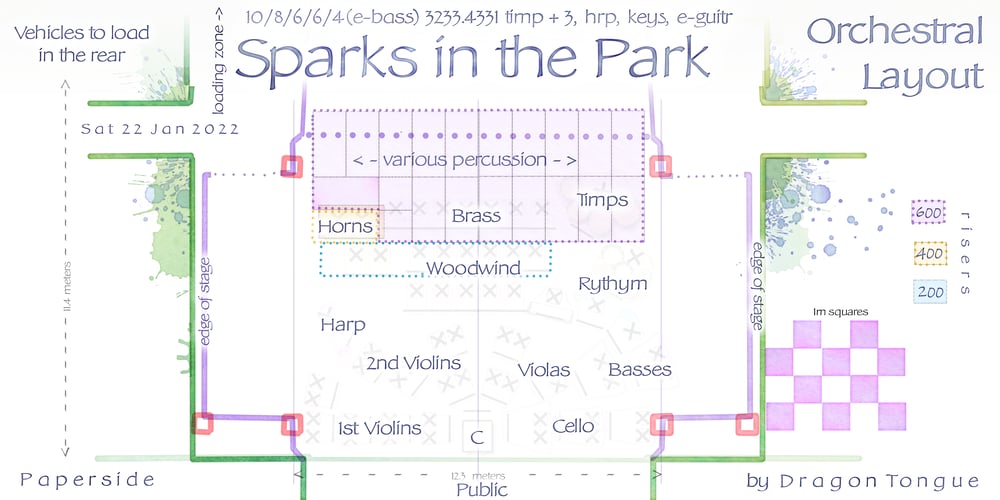
DT Paperside Font Family was designed by Scott Spensley and published by Dragon Tongue Foundry. DT Paperside contains 6 styles and family package options. Paperside:Neither Papyrus nor SSI Countryside.Inspired in some ways by the Papyrus form, but untextured and smoother, with the dimensions and proportions more open, like that of Countryside SSi, with its larger easily readable lowercase body, and more consistent, shorter stems.Paperside has an open scripted feel which is pleasing on the eye and easy to read. Paperside can enhance the first letter of most sentences automatically, and changes other letters to suit their position within words, and the letters they appear beside.Now comes in 5 weights plus italic.For best results, use this ‘smart font’with Contextual Ligatures turned on.Mulitiple Stylistic Alternatives are included.Inspiration for this font came from two other fonts.Papyrus: was designed by Chris Costello and created in 1982, it is a hand-drawn textured typeface, emulating texts written in biblical times.One of the most used (and misused) fonts of all times.Owned by Letraset, and currently published by the Internation Typeface Corporating (ITC).Countryside SSi: The serif font of an unknown designer, is currently licensed by Southern Software Inc.Feel free to preview some of the Dragon Tongue fonts that are yet to be released, at https://www.dragon-tongue.com/fonts